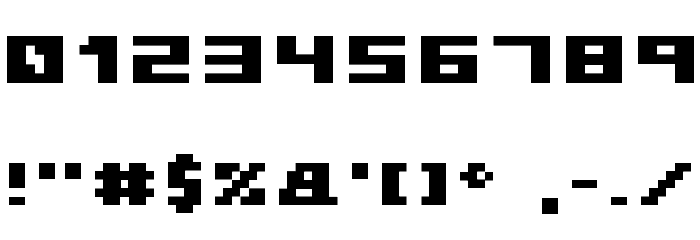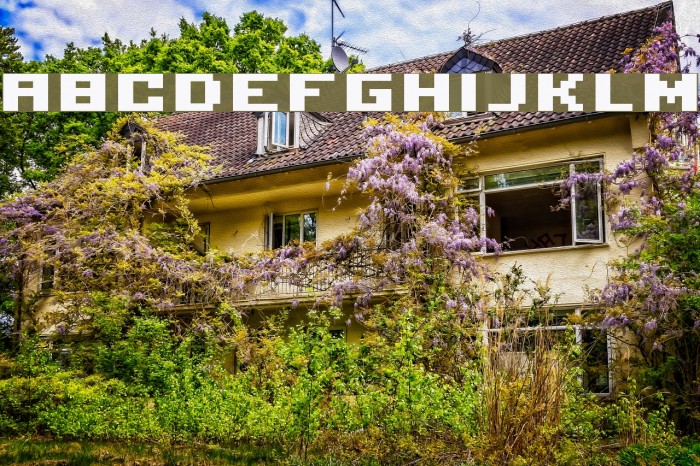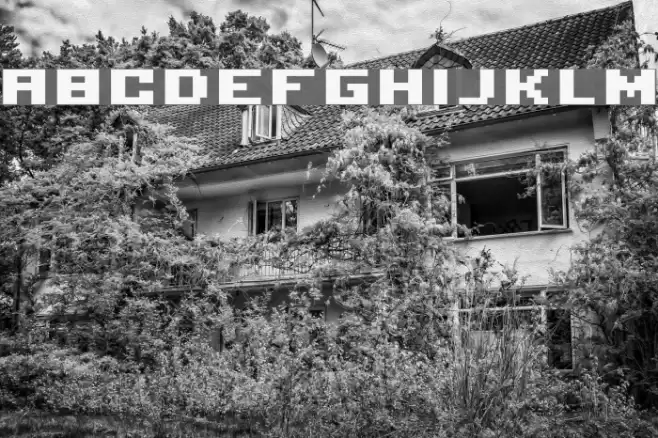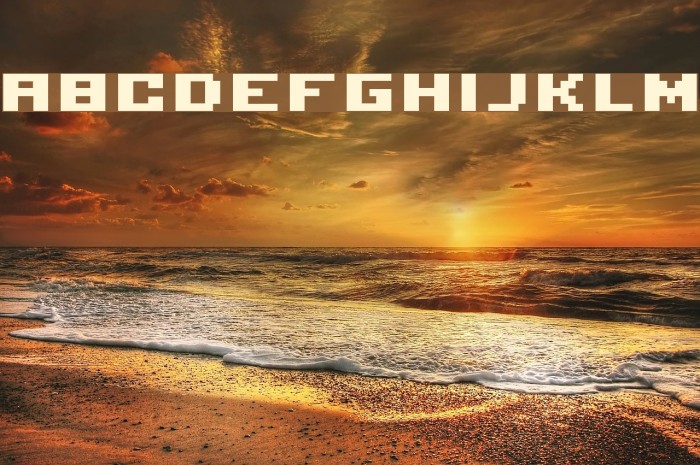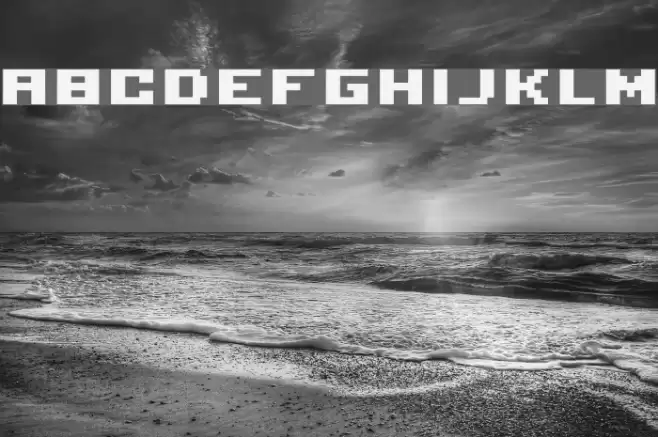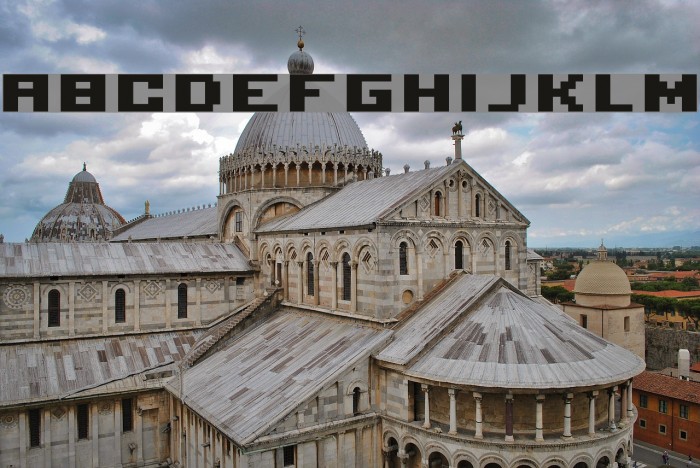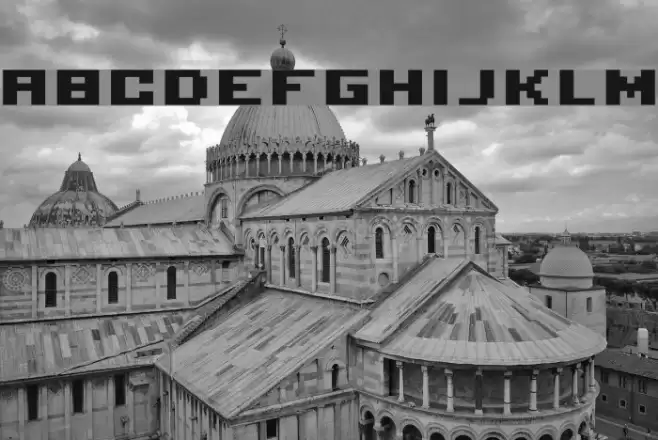
serious2b Font
serious2b Description
This font features a bold, geometric design with a pixelated, blocky appearance reminiscent of early digital displays or video games. Each character is constructed with uniform square shapes, creating a cohesive and structured look. The uppercase and lowercase letters maintain a consistent height, contributing to a monospaced feel, although the font is not strictly monospaced. The numerals and special characters follow the same design principles, ensuring visual harmony across all glyphs. This style is particularly effective for projects that aim to evoke a sense of nostalgia or a retro digital aesthetic.